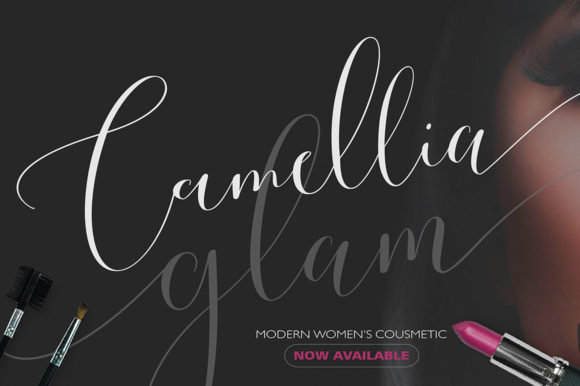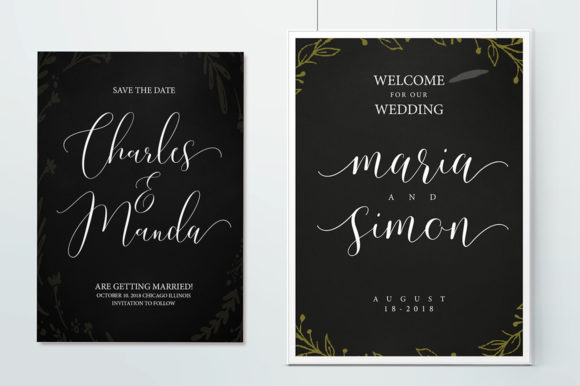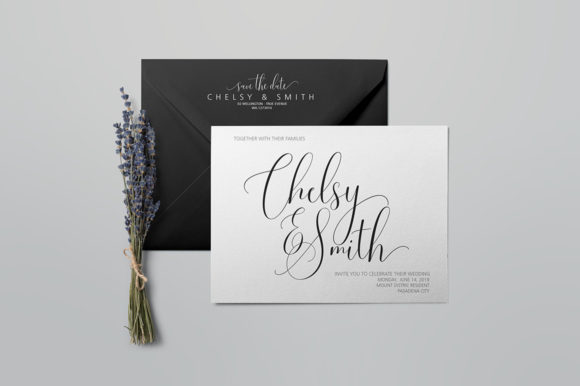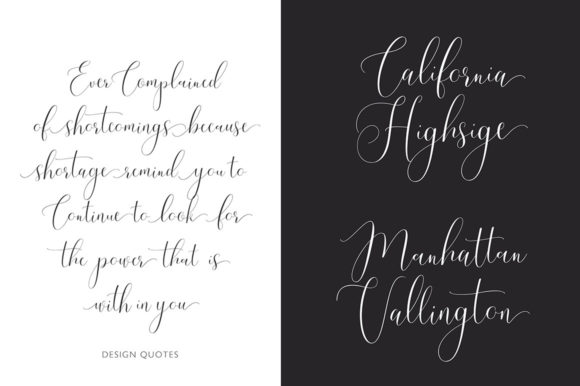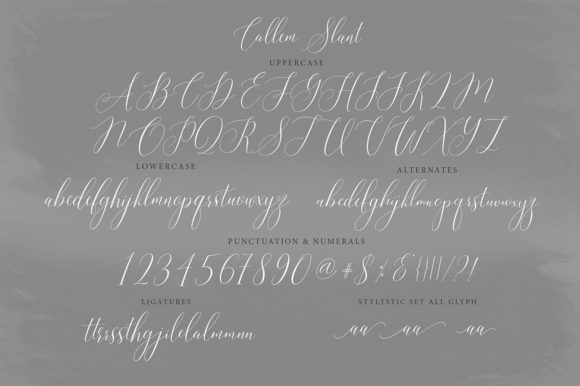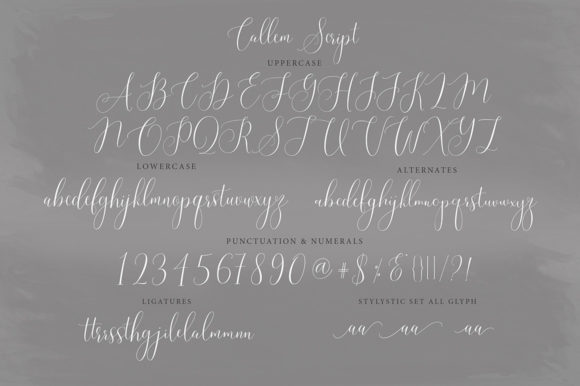
The Quest for the Perfect Script Font: Discovering Callem
I still remember the countless hours I spent searching for the ideal script font for a wedding invitation design project. My client wanted something elegant, yet modern; classic, yet playful. I scrolled through font after font, but nothing seemed to fit the bill. That was until I stumbled upon Callem, a beautiful calligraphy-style script font that has since become a staple in my design toolkit.
A Personal Review of Callem Script Font
What I Love About Callem ✨
- 💕 Natural Handwriting Feel: Callem perfectly combines a classic, contemporary style with a very natural handwriting feel, making it perfect for craft designs.
- 🎉 OpenType Features Galore: With numerous OpenType features available, you can mix and match styles to create the perfect work.
- 🔍 PUA Encoded for Easy Access: Callem is PUA encoded, making it easy to access all glyphs and swashes.
- 👰 Perfect for Wedding and Event Designs: This font is ideal for wedding invitation design, signature, letterhead, logo, shirts, and more.
While Callem is an amazing font, there are a few minor quirks to be aware of:
- 🤔 Learning Curve: With so many OpenType features available, it may take some time to get familiar with the font’s capabilities.
- ⚠️ Limited Use on Non-Design Platforms: Some platforms may not support the full range of OpenType features, which could limit the font’s potential.
The Story Behind Callem
Callem was created with the goal of combining classic calligraphy with modern sensibilities. The font’s designer aimed to create a script font that felt natural and elegant, yet contemporary and versatile. The result is a beautiful font that’s perfect for a wide range of design projects.
Q: Is Callem suitable for body text?
A: While Callem is a beautiful font, it’s best suited for display text and headings. Its elegant feel may not be suitable for large blocks of body text.